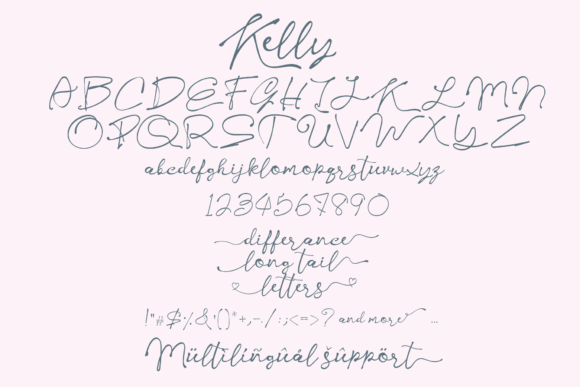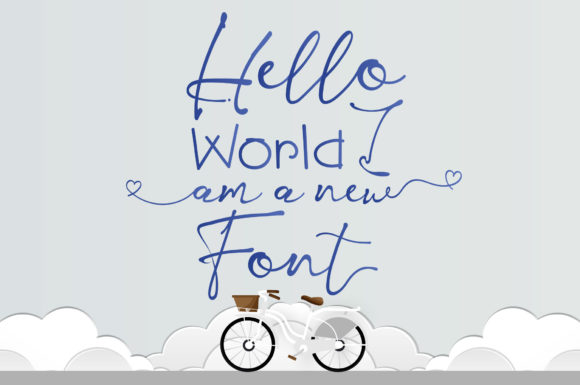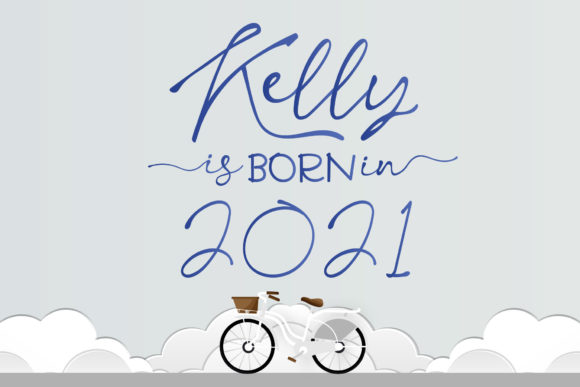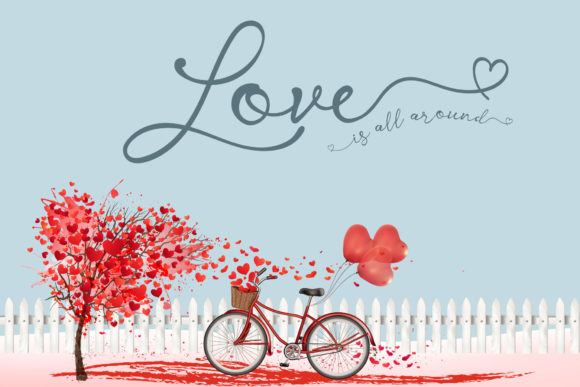
About Kelly Signature Font
Kelly Signature is a one-of-a-kind handwritten font that brings a touch of uniqueness and charm to any design. With its playful and slightly quirky style, this font adds personality and character to a wide range of contexts.
The beauty of Kelly Signature lies in its versatility. It adapts effortlessly to various design projects, whether it’s used for logos, branding, invitations, social media posts, or any other creative endeavor. Its distinct handwritten look adds a sense of authenticity and a personal touch to your designs.
One of the standout features of Kelly Signature is its extensive glyph and swash collection. Being PUA encoded, you have easy access to a wide range of glyphs, ligatures, and decorative swashes. This allows you to customize and enhance your designs, giving them a unique and personalized feel.
Whether you’re creating a fun and whimsical design or a more refined and elegant project, Kelly Signature has the ability to capture attention and leave a lasting impression. Its slightly quirky letterforms and smooth curves create a visually appealing and engaging typography that stands out from the crowd.
Adding Kelly Signature to your font collection gives you a tool that brings a sense of playfulness and uniqueness to your designs. It’s a font that sparks creativity and invites experimentation. By combining it with other fonts or using it on its own, you can create captivating visuals that truly stand out.
So, embrace the quirkiness of Kelly Signature and let it add a touch of personality to your next design project. Explore its extensive set of glyphs and swashes to create customized and eye-catching compositions. Whether it’s for personal or professional use, Kelly Signature is sure to bring a delightful and distinctive charm to your designs.